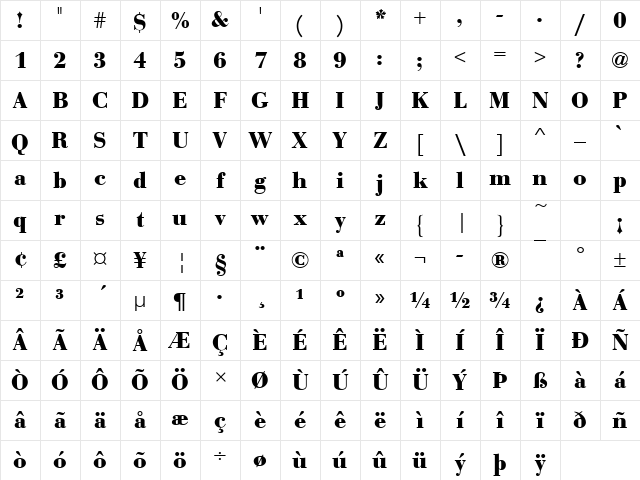
BauerBodT Bold
Design Context for BauerBodT
BauerBodT is a composed and adaptable typeface that performs quietly and consistently across a wide range of design contexts. Its bold stroke weight gives it real presence on the page.